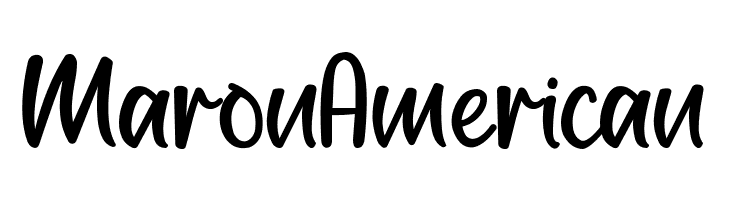
A bold, handwritten-style font with expressive, playful strokes.
A bold, handwritten font with a playful and energetic style.
A bold, playful handwritten script font with a friendly and energetic style.
A bold, playful handwritten font with a casual and energetic style.
A bold, playful font with a hand-drawn, energetic style.